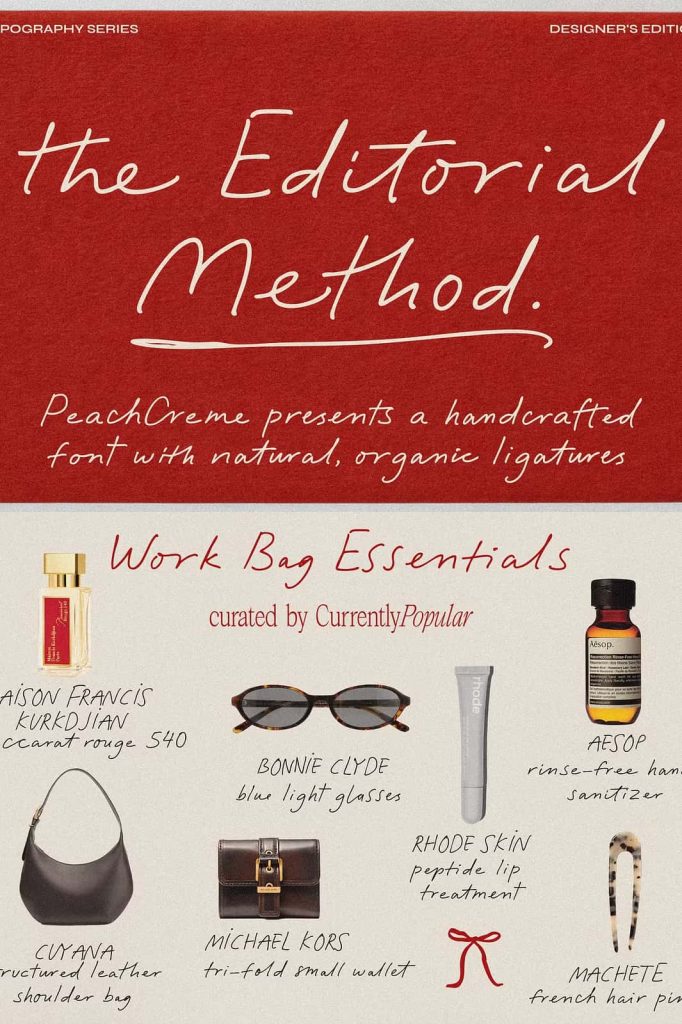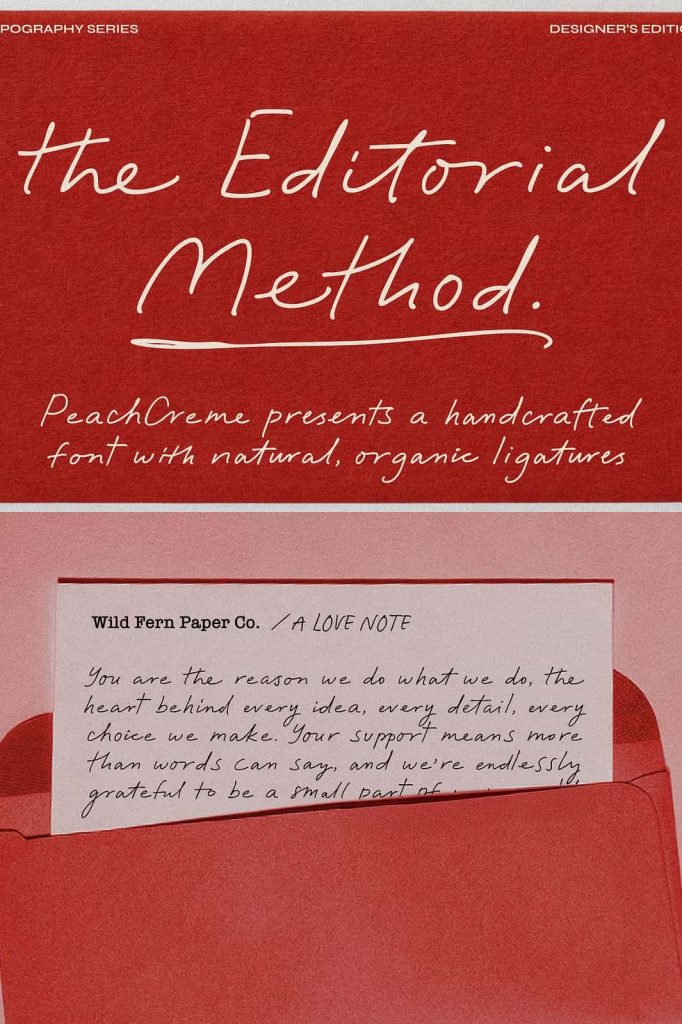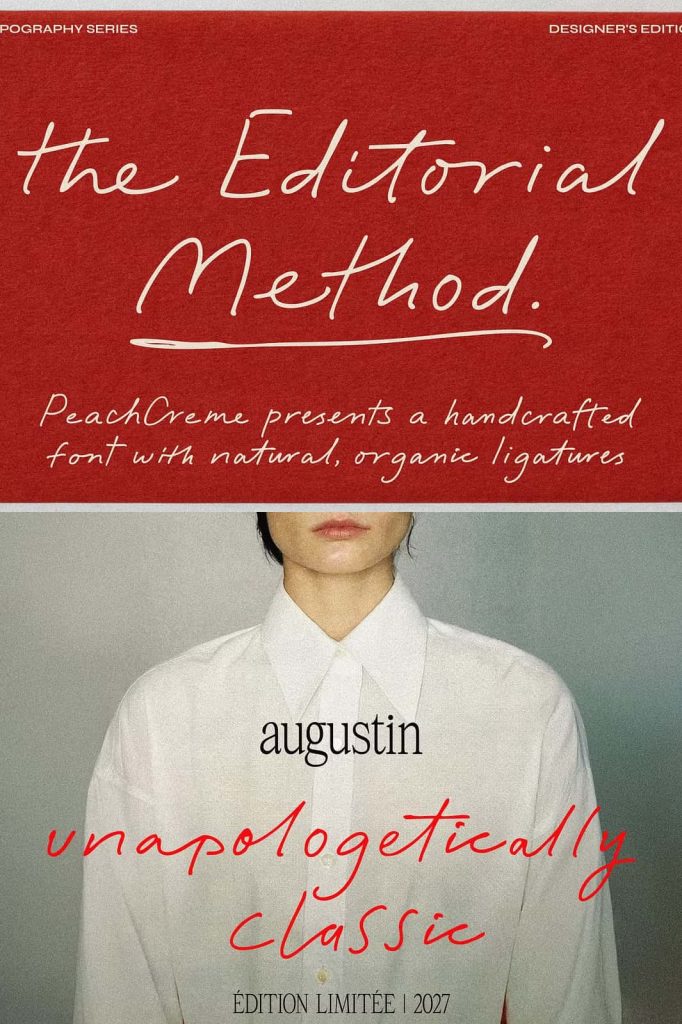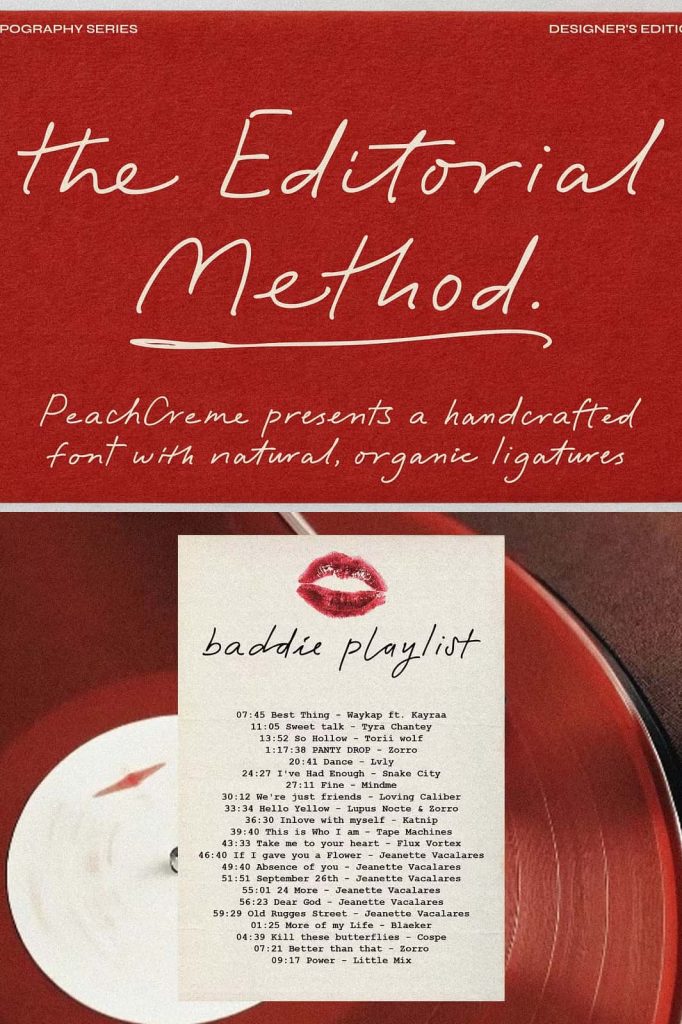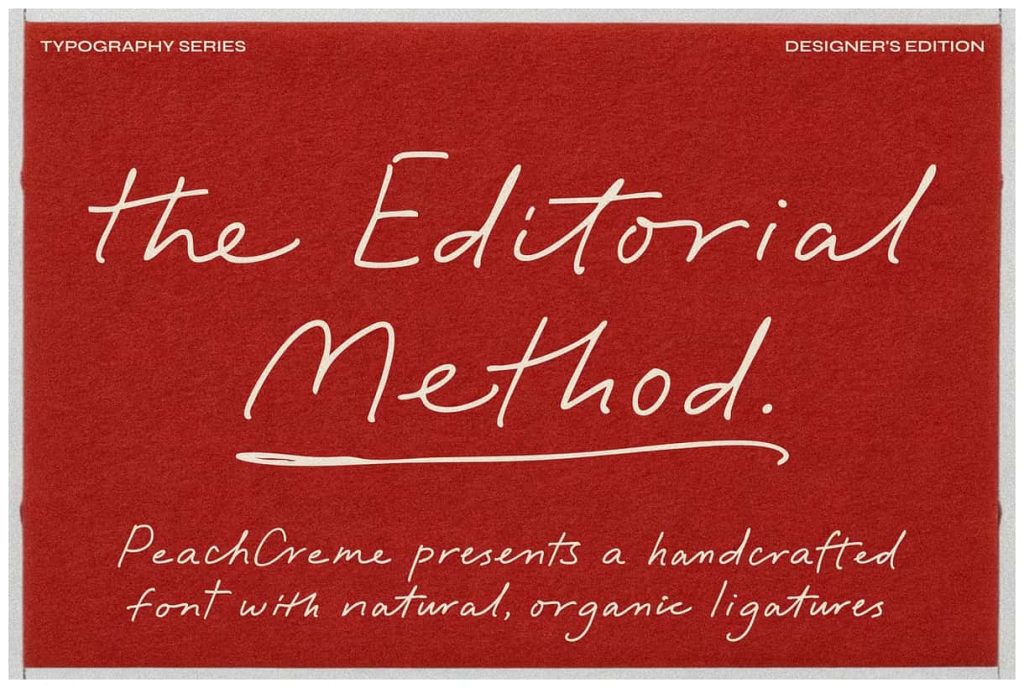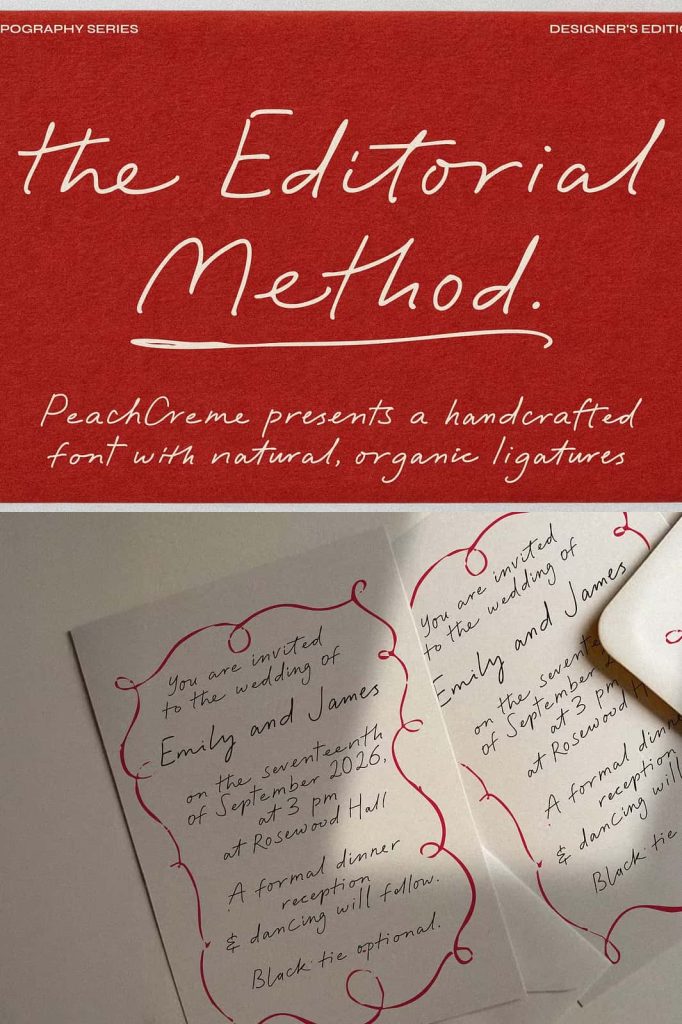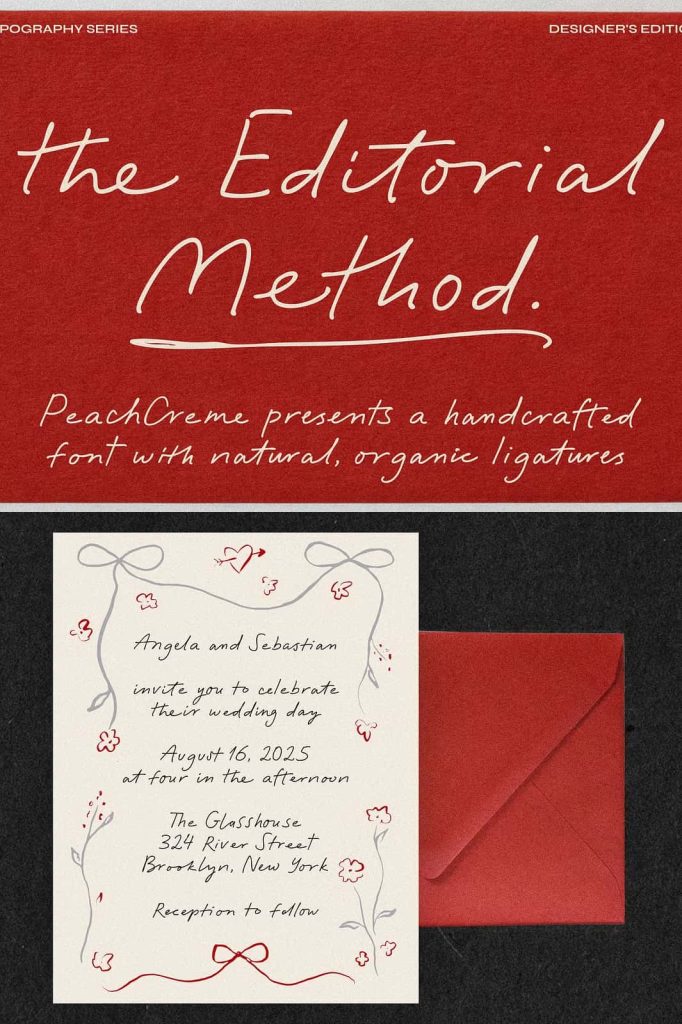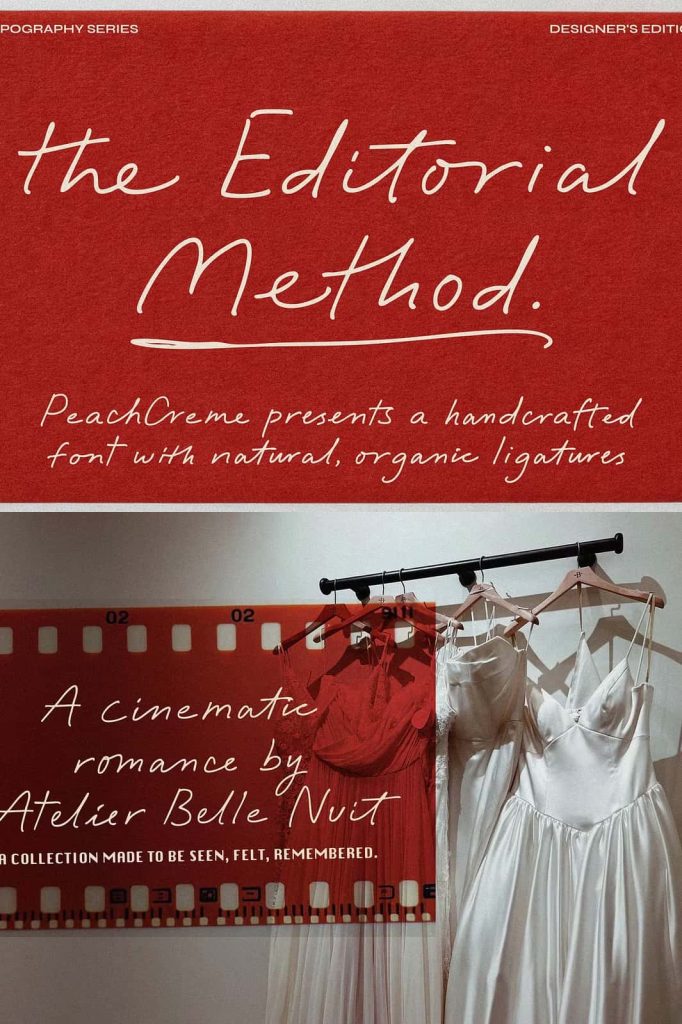
“Ideas” is a sophisticated and modern font designed to elevate the elegance of invitations, wedding themes, and fashion branding. With its refined strokes and fluid curves, it captures a perfect balance between classic calligraphy and contemporary style.